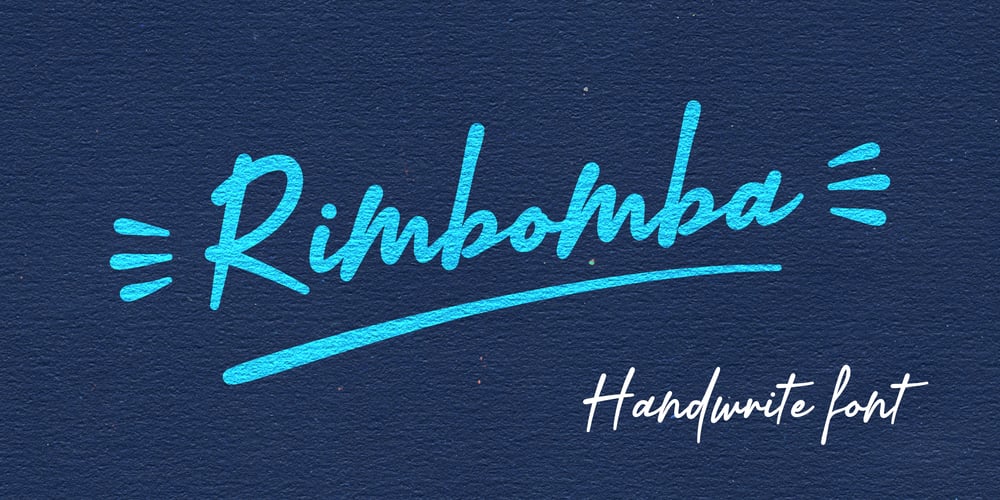
Rimbomba Font Family was designed by Santiago Silva and published by Muykyta. Rimbomba contains 3 styles and family package options. Rimbomba is a freehand style font with long ascenders and descenders and a steep slant making it elegant yet casual. It is inspired by writing letters by hand, as it was done before, with strokes that in the normal style imitate the tip of a pen and in the medium and bold styles they imitate a round pen stroke.It is a font with strength in its movements and finesse in its curves, which creates a homogeneous set that is easy to read and which produces a certain reading speed.It is complemented with stylistic alternatives for the beginning and the end of the words.